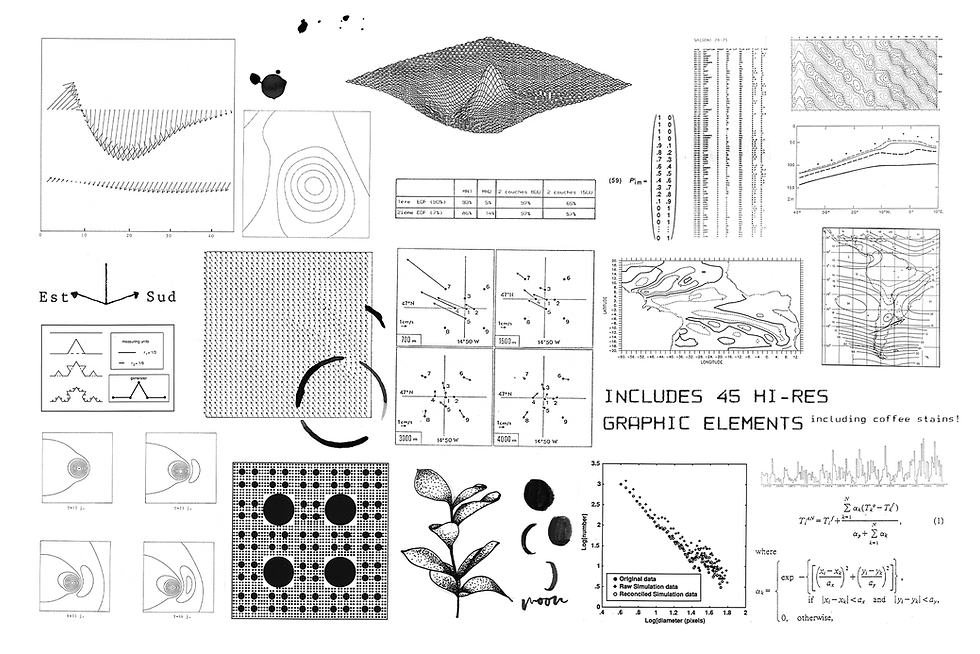
This is the fifth bundle of my typewriter fonts.
It includes different types of typewriter fonts, from regular serif to sans serif. SVG versions and contextual alternates are included when available for extra texture and realism.
This set also includes all the extras included in the individual products, such as vintage paper scans and design elements with transparent backgrounds.
Use this set in any designs that needs a vintage touch. Use it in long or short texts, in digital collages, branding and packaging, social media posts, logotypes, etc.